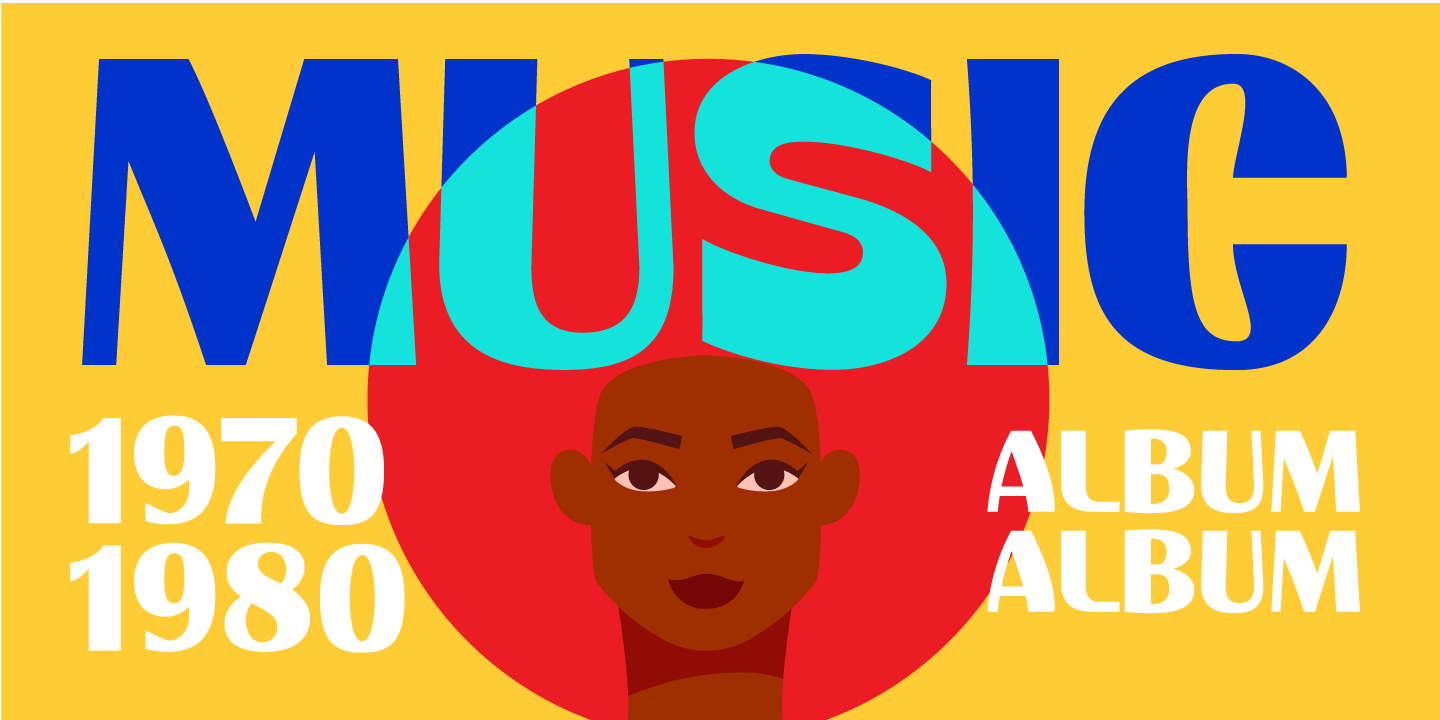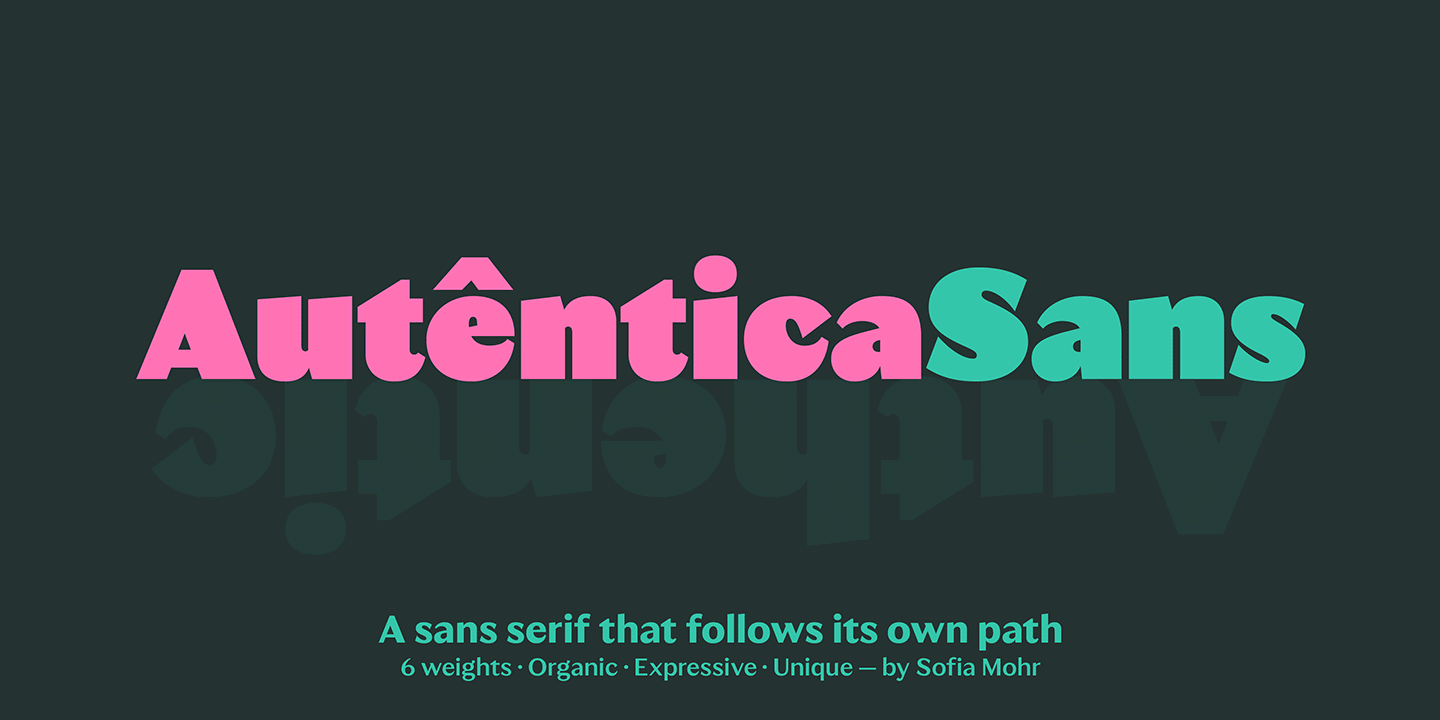
Autêntica Sans doesn't try to fit in — it follows its own path. Expressive and full of personality, Autêntica Sans is a typeface with an organic structure and striking contrast. Its strokes subtly narrow and expand across the letterforms, creating rhythm, movement, and visual tension while maintaining clarity. Diagonal cuts introduce a sense of direction and break strict predictability, giving the typeface a distinctive voice and dynamic presence. Designed by Sofia Mohr between 2024 and 2025, Autêntica Sans is the first release in a larger type family that will expand into additional styles, including Serif, Slab, Classic, and Rounded versions. Primarily designed for display use, Autêntica Sans spans weights from Regular to Black, shifting effortlessly between restraint and bold expression. Autêntica Sans isn't neutral — and it isn't meant to be. It's a typeface designed to be seen, recognized, and remembered. The name says it all: Autêntica Sans. 7 fonts for $120 $48 | |